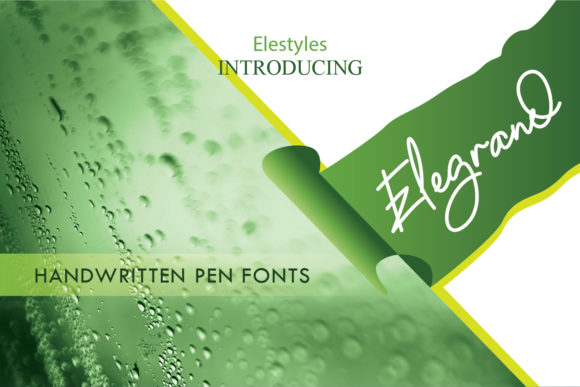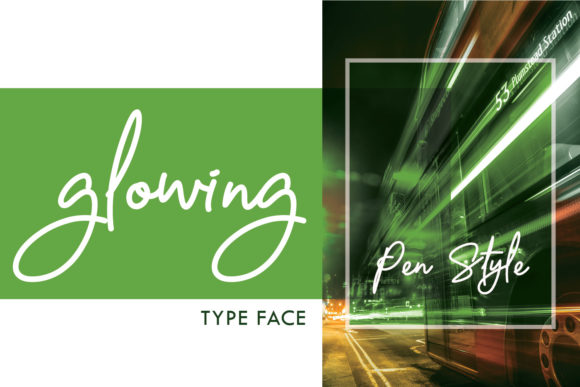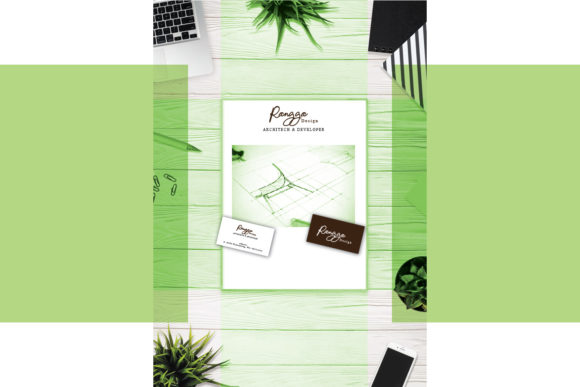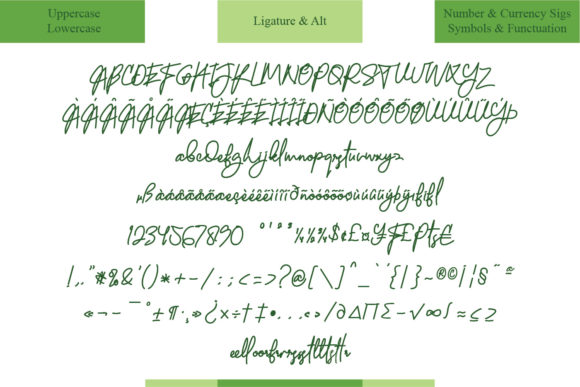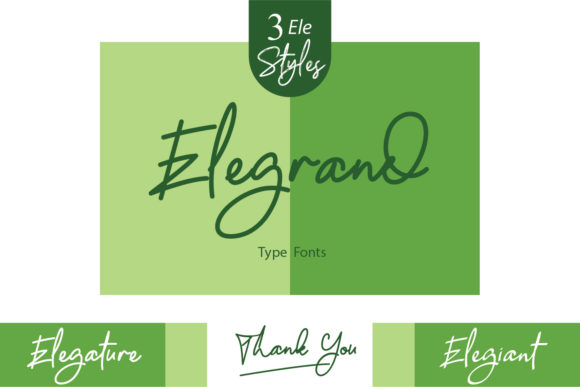
Elegrand Font
About Elegrand Font
Elegrand is a light and authentic script font that will take any design project to the next level. Get inspired by its casual charm!